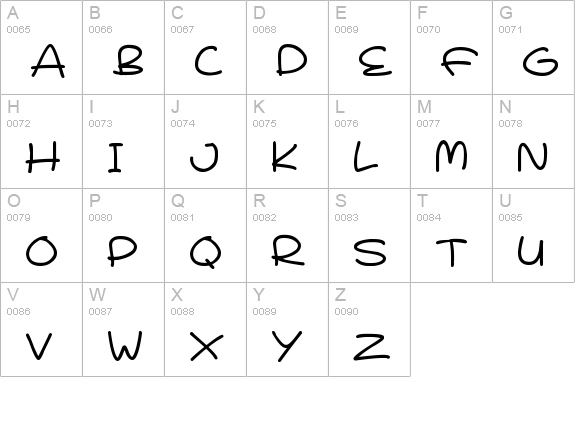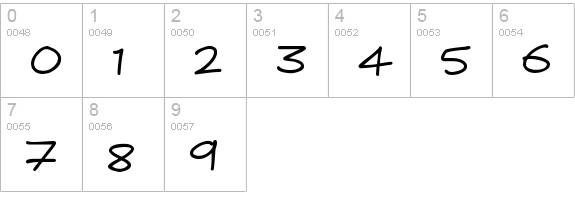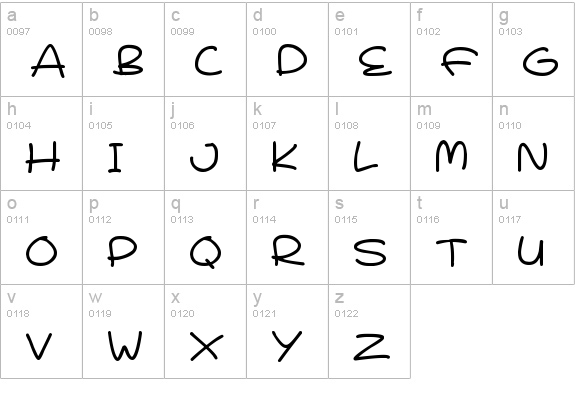
Love You Angel Font Details
Love You Angel is a free for personal use font in the Script > Handwritten category, designed by Darrell Flood. It has been downloaded 101 times and is available for Windows, Mac and Linux.
Love You Angel font is a beautifully designed typeface that exudes elegance and charm. With its delicate curves and graceful strokes, this font captures the essence of love and warmth. Perfect for romantic occasions, invitations, or any project that requires a touch of sophistication.